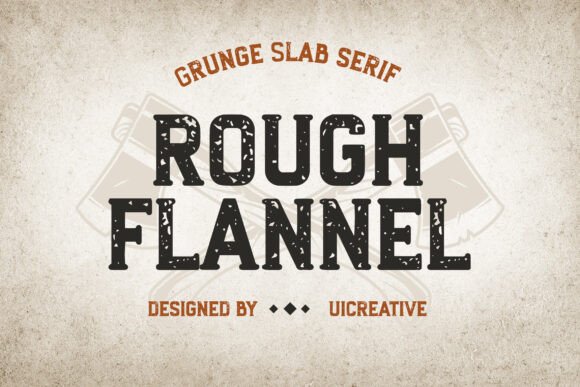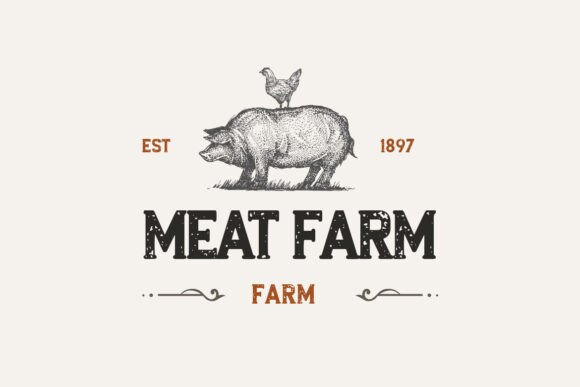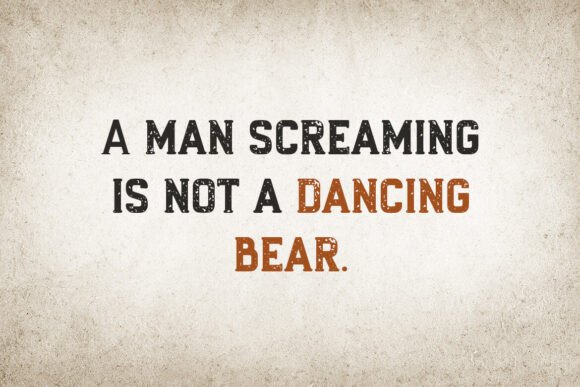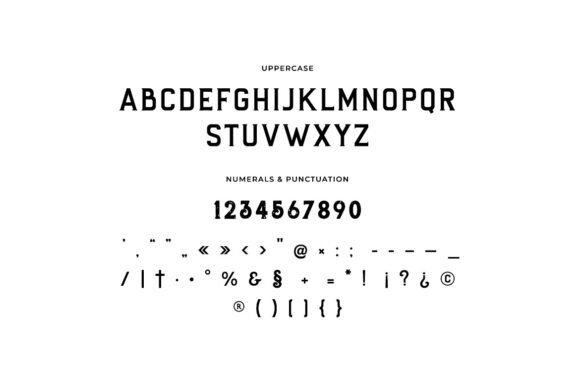
Rough Flannel Font: Vintage Slab Serif for Rustic Logo Design
About the Rough Flannel Font
Presenting Rough Flannel Font, a unique and stylish typeface that will make your work stand out. Rough Flannel Slab Serif Font.The modern display font feels beautiful classy, elegant, and stylish. This font is ideally suited for a wide variety of projects, such as signature, stationery, logo, wedding, typography quotes, magazine or book covers, website headers, branding, and more. Also, fashion-related branding or editorial design displays both masculine and feminine qualities.
Rough Flannel’s strong slab serifs make it ideal for headlines, logos, and short, impactful text within branding materials and posters. Its inherent elegance also lends itself well to high-end packaging and wedding invitations. However, its bold weight and relatively large x-height make it less suitable for body copy or UI elements requiring high readability in smaller sizes. Avoid using it for extended text blocks.
To complement its refined yet rugged personality, pair Rough Flannel with clean sans-serif fonts like Montserrat or Lato for a contemporary contrast. For a more classic feel, a delicate serif like Garamond or a playful script like Great Vibes could also work well, depending on the desired overall mood.
The font projects a sophisticated yet approachable personality, blending a sense of boldness with understated elegance. This makes it a versatile choice for brands aiming for a balance of strength and refinement, particularly in the fashion, luxury goods, or high-end lifestyle sectors.